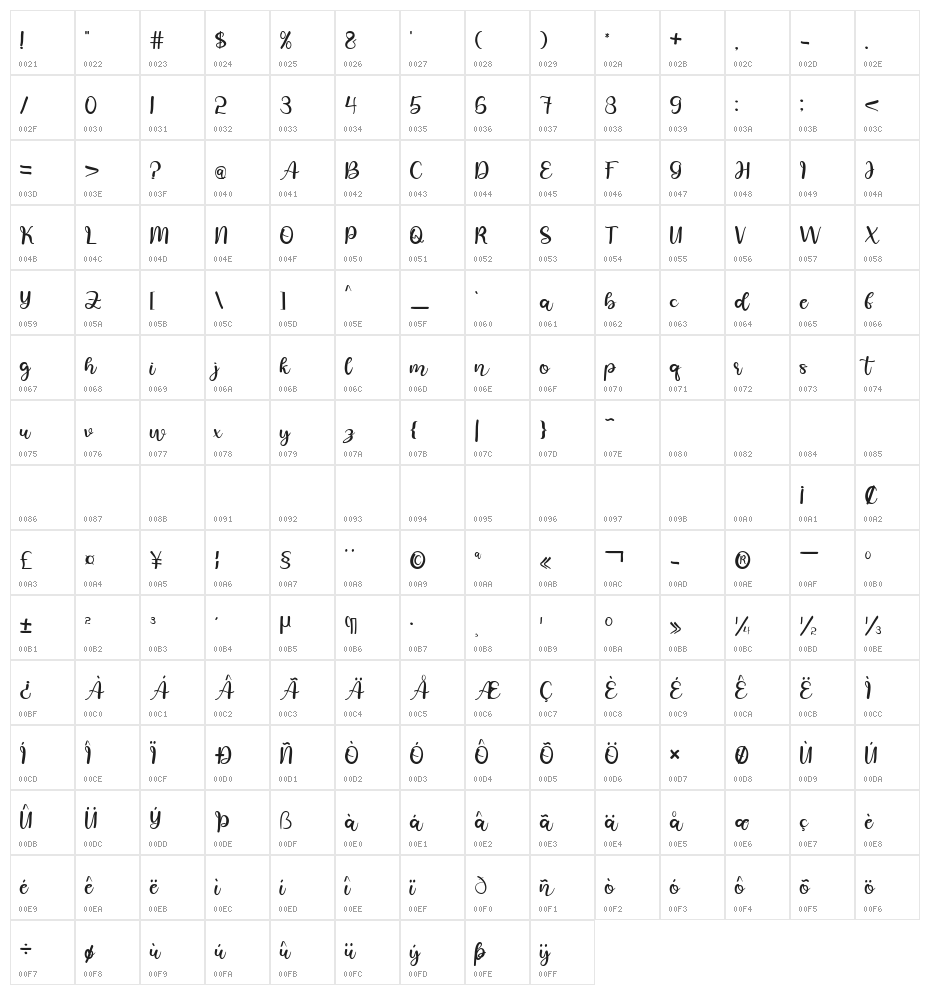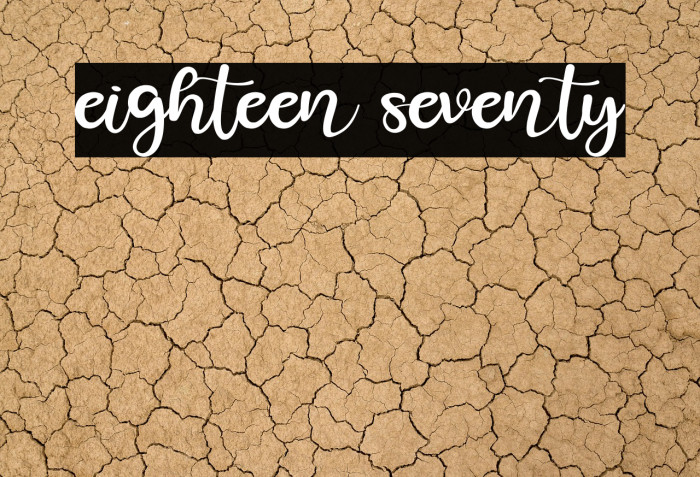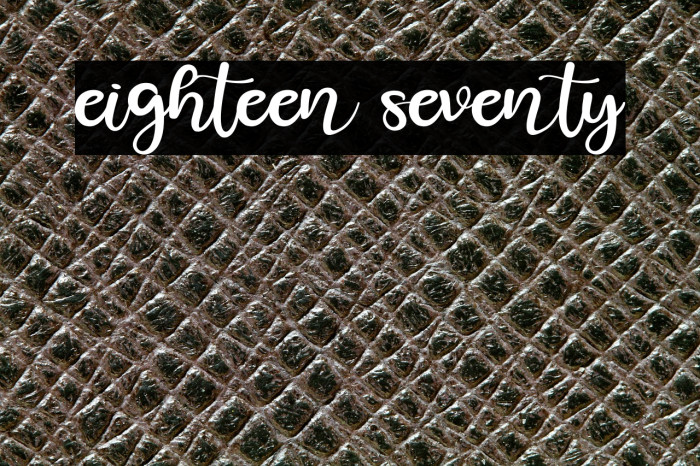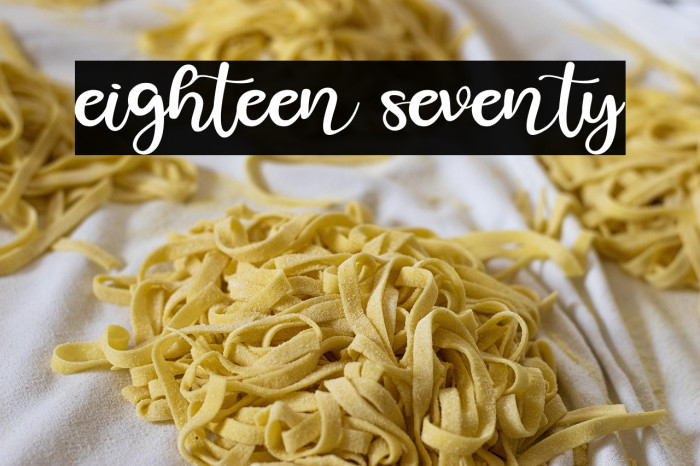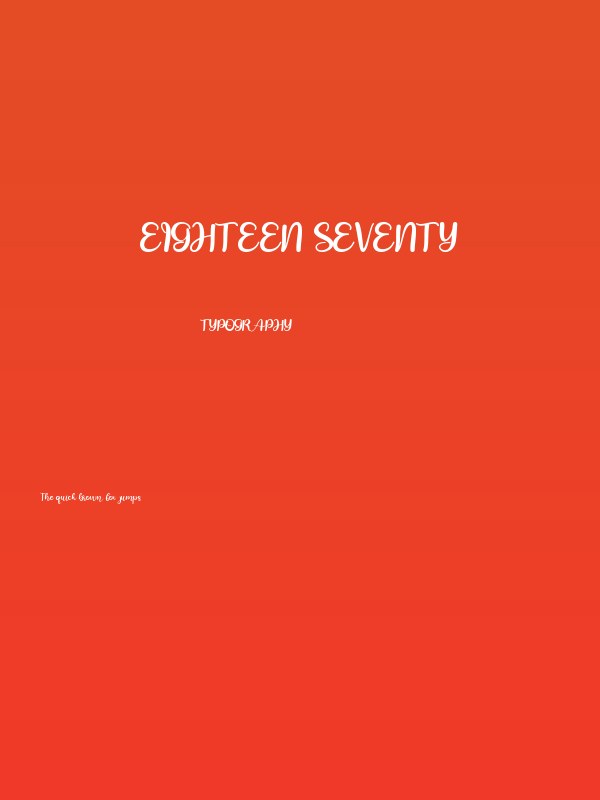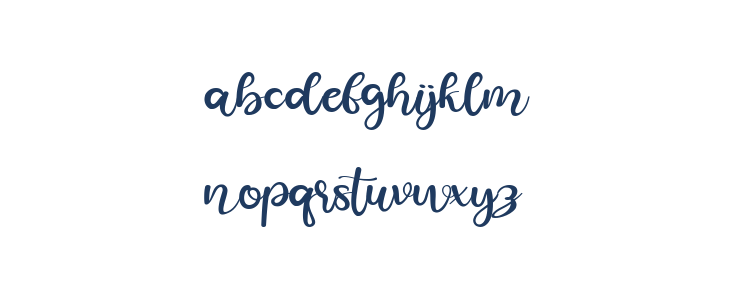
eighteen seventy Font
eighteen seventy Description
This font features a playful and elegant script style with a handwritten appearance. The uppercase letters are bold and flowing, with a slight slant that adds a dynamic feel. The lowercase letters maintain a consistent style, with smooth curves and loops that enhance readability. Numbers and special characters are designed to match the overall aesthetic, providing a cohesive look. The font's strokes vary in thickness, giving it a lively and energetic vibe, suitable for creative and informal projects.
Use CaseLogos, Invitations, Social Media
Proposed ProjectsIdeal for wedding invitations, greeting cards, branding, and social media graphics.